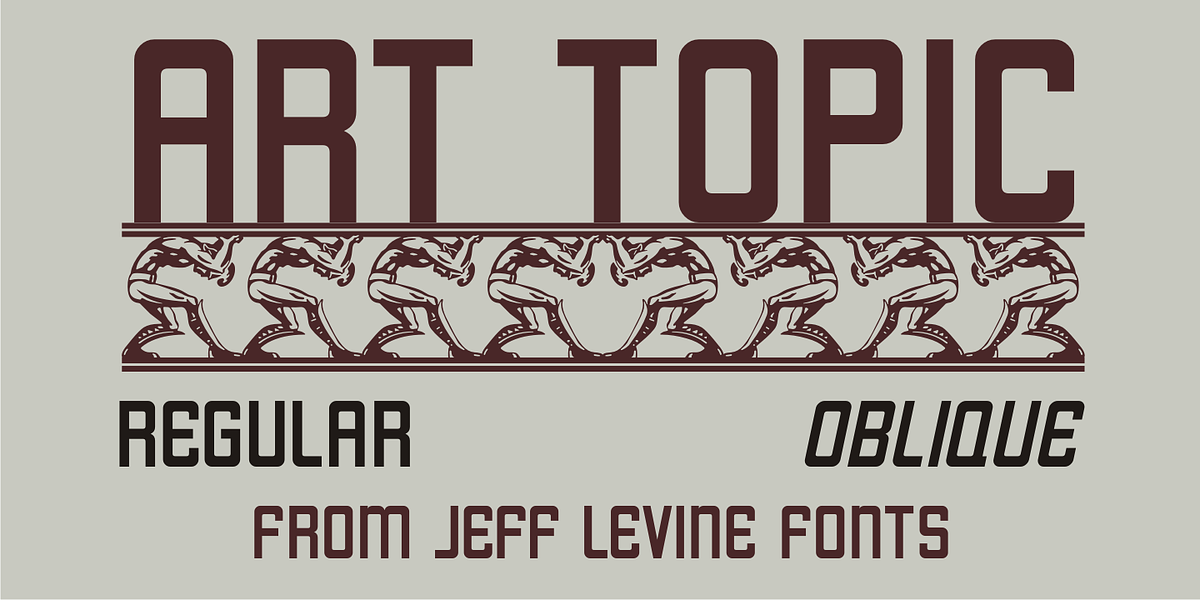
Art Topic JNL
Art Topic JNL is a round-cornered square sans serif in the Art Deco style, and was modeled from a 1930 WPA (Works Progress Administration) poster for the Federal Arts Project.